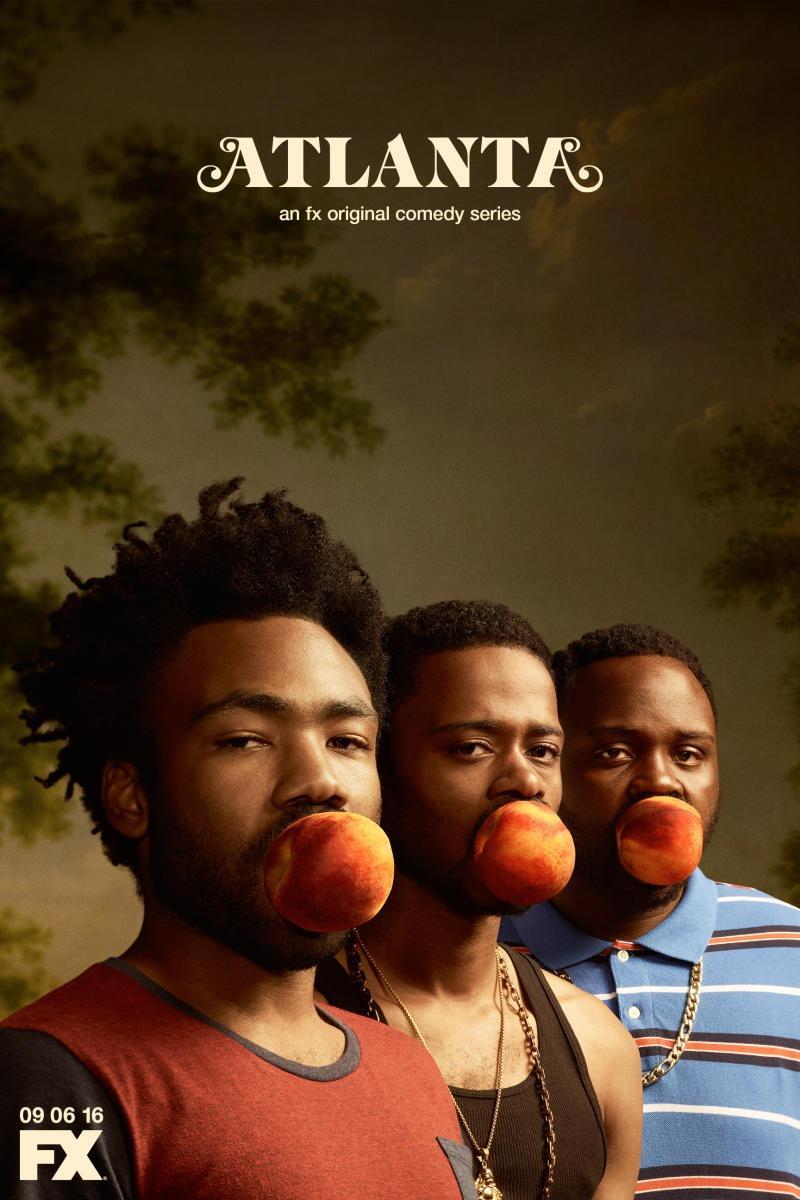
Atlanta (TV Show) Font
ComedyAtlanta is a critically acclaimed television show created by and starring Donald Glover, which follows the lives of two cousins navigating the Atlanta rap scene in an effort to better their lives and the lives of those around them.
The title of the TV series uses a font that closely resembles Cabernet JF Pro, a beautiful serif font designed by Jason Anthony Walcott and published by Jukebox Collection in 2015.